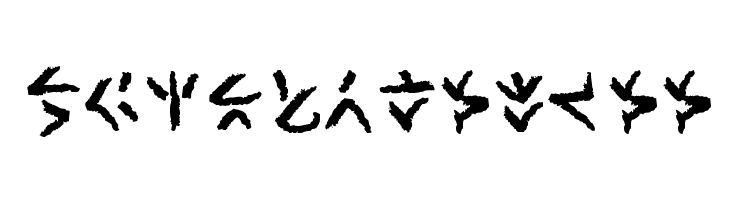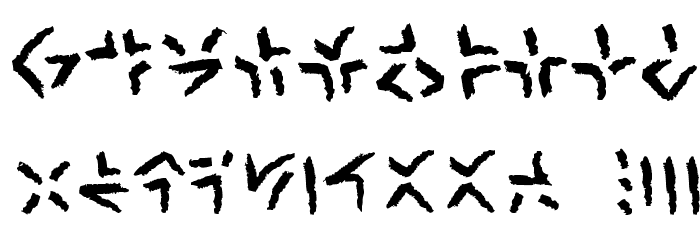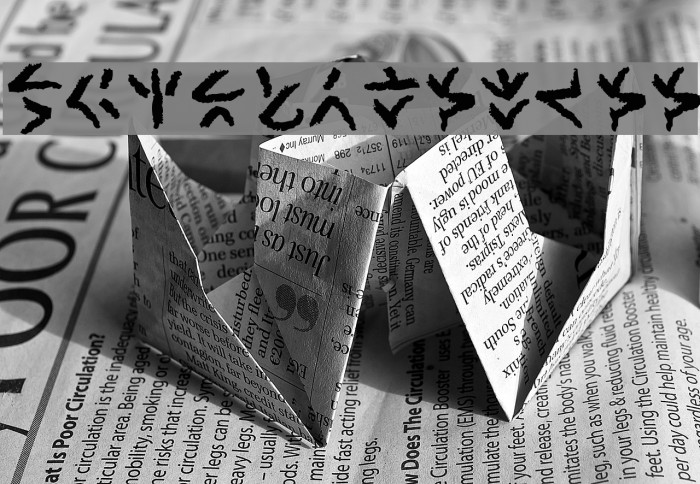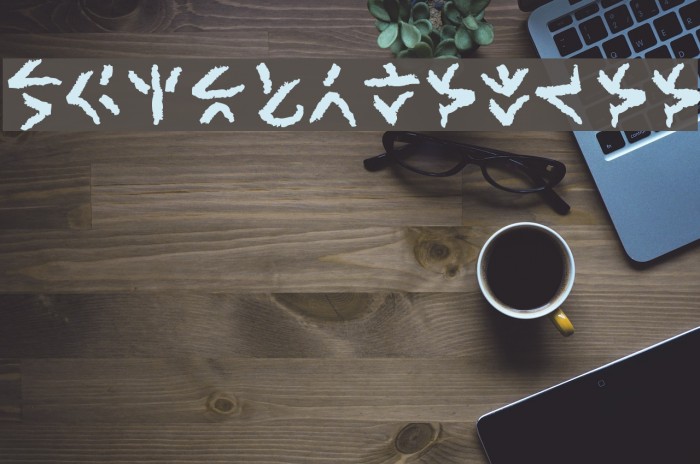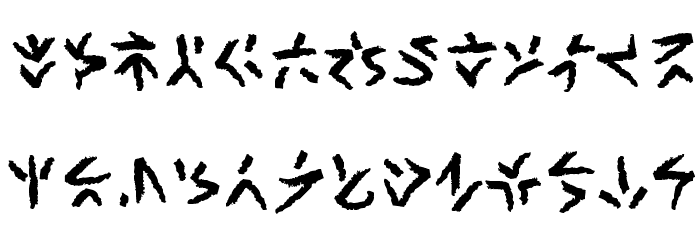
XenoTribalBB Font
This font features a highly decorative and tribal-inspired design, characterized by bold, angular strokes and a rough, textured appearance. The characters are stylized with sharp edges and intricate details, giving them an ancient, mystical feel. The font's unique aesthetic makes it stand out, with each letter appearing as a piece of art. The overall design is consistent throughout, maintaining a cohesive tribal theme that is both striking and memorable. This font is not suited for body text due to its complex design but excels in creating a strong visual impact.
A bold, tribal-inspired decorative font with angular, textured strokes.
• Proposed Projects: Ideal for projects requiring a strong visual impact, such as posters, album covers, or themed event invitations.
• Category: Decorative/Display
• Contrast: High
• Overall Style: Decorative
• Use Case: Logos, Headlines, Posters